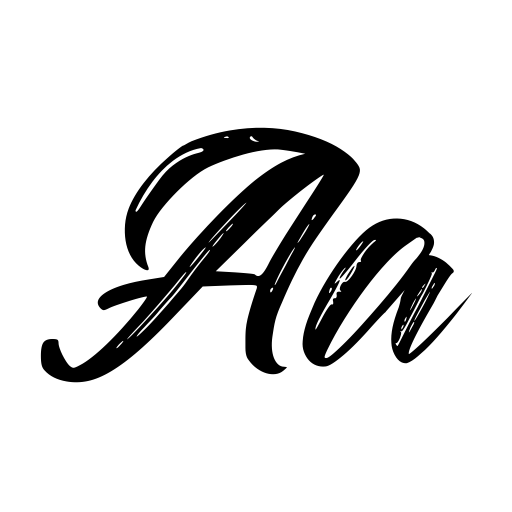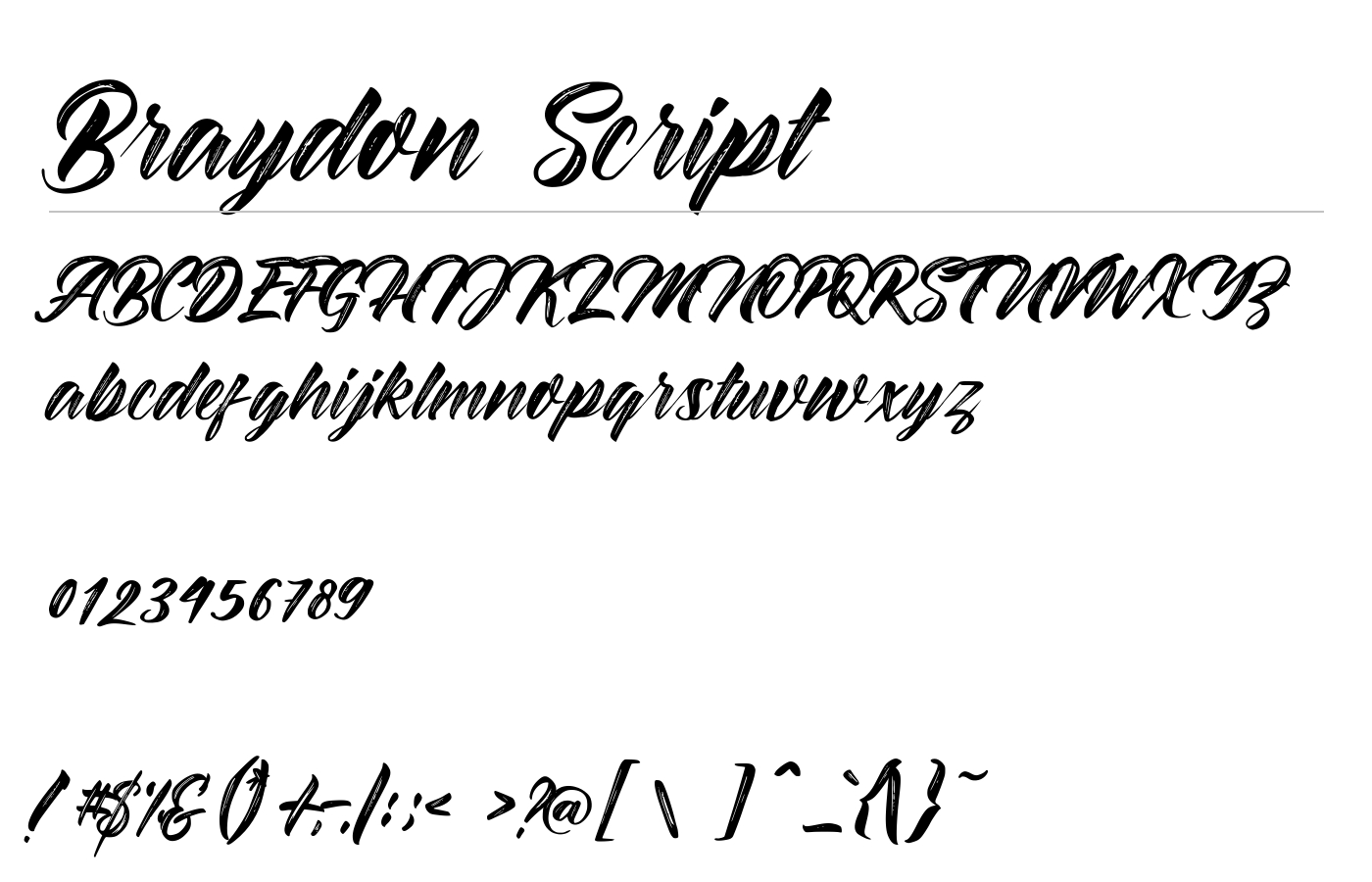
Braydon Script is a bold, brush-style script font that combines energetic, textured strokes with a lively, casual elegance. Its dynamic letterforms with rough, hand-painted effects make it perfect for designs that aim to feel personal and expressive, ideal for branding, invitations, or creative headlines that want to convey creativity and warmth. This font’s lively spirit and strong presence work especially well in fashion, lifestyle, and artistic projects seeking a modern yet handcrafted look.
Braydon Script Font